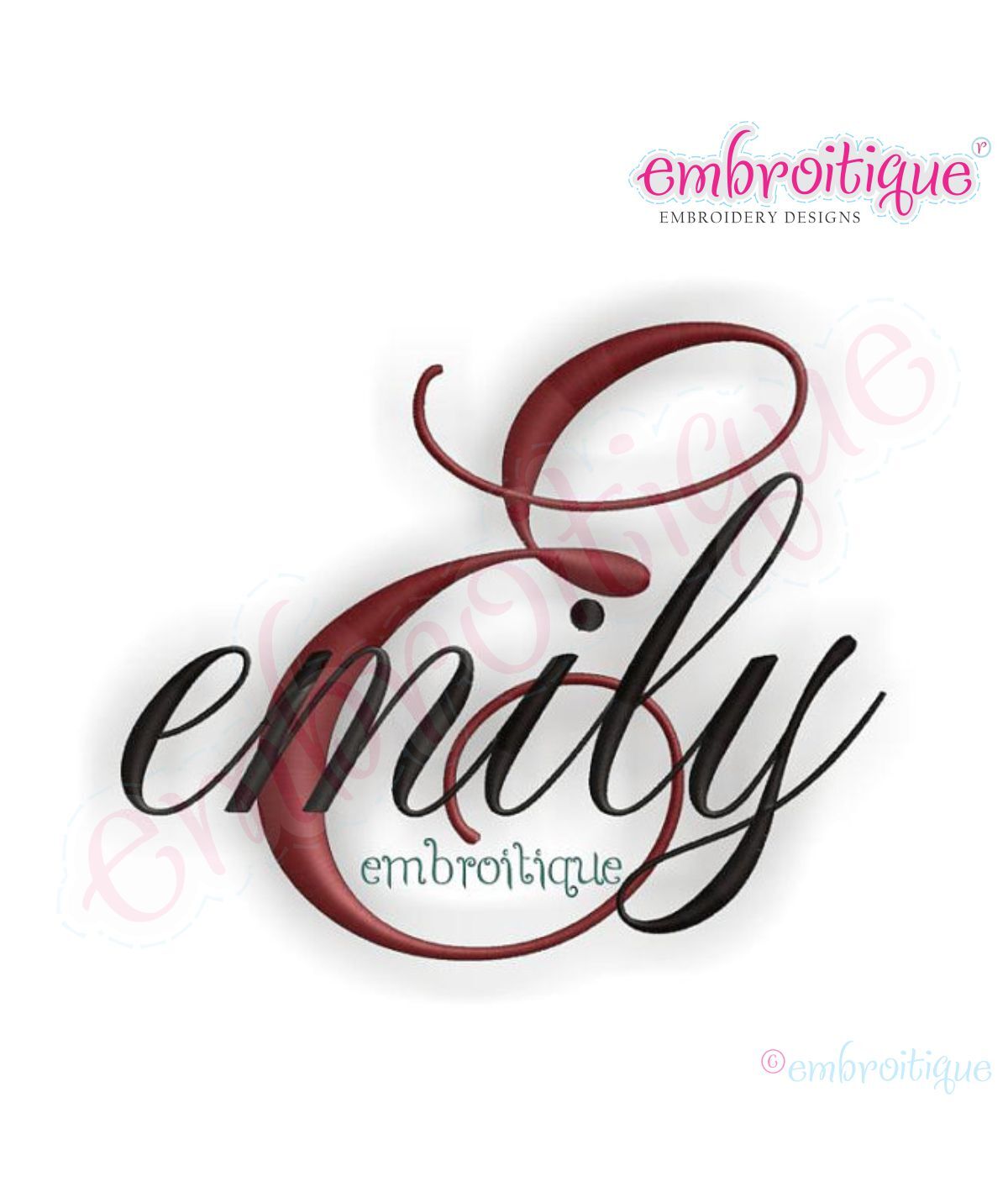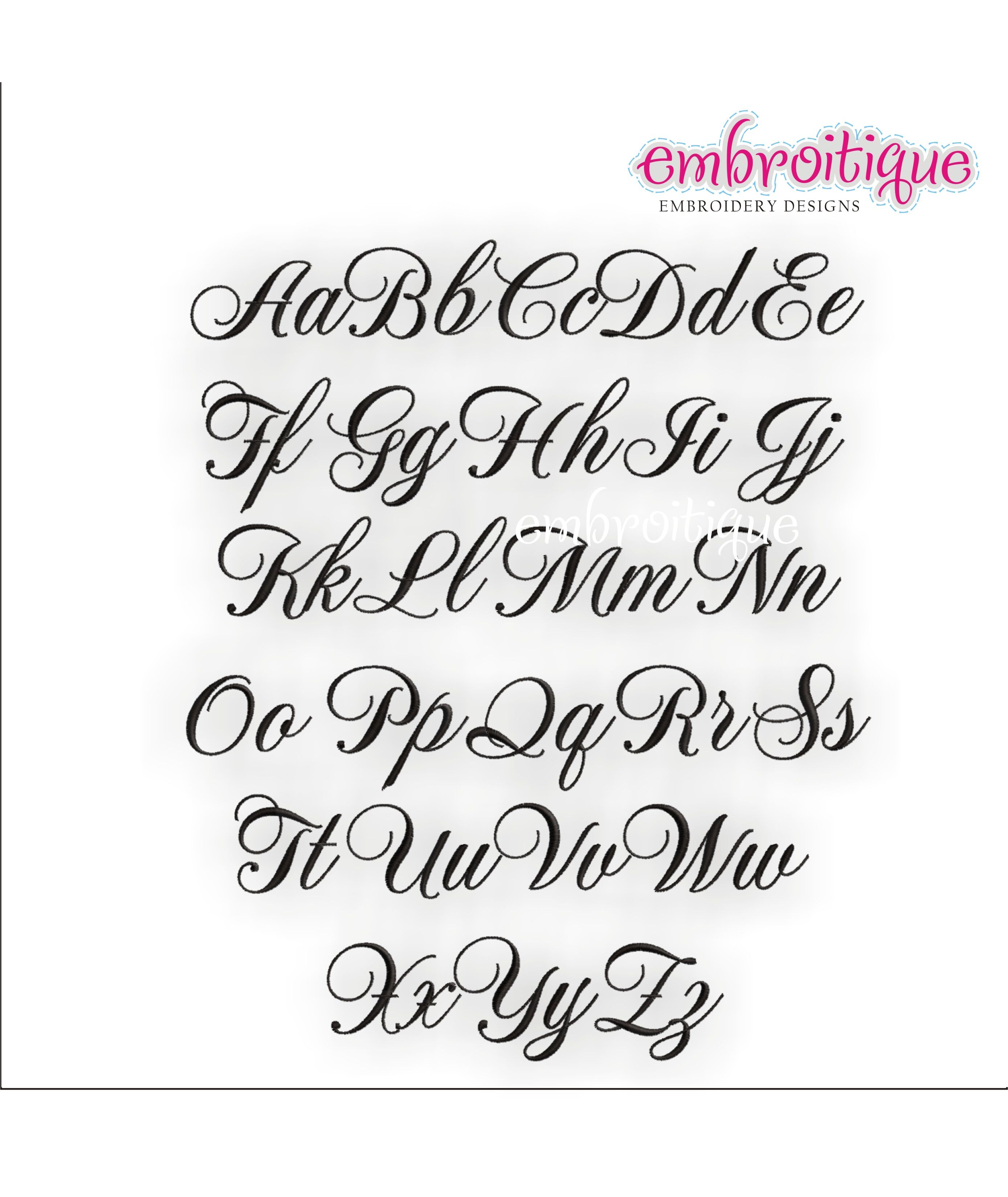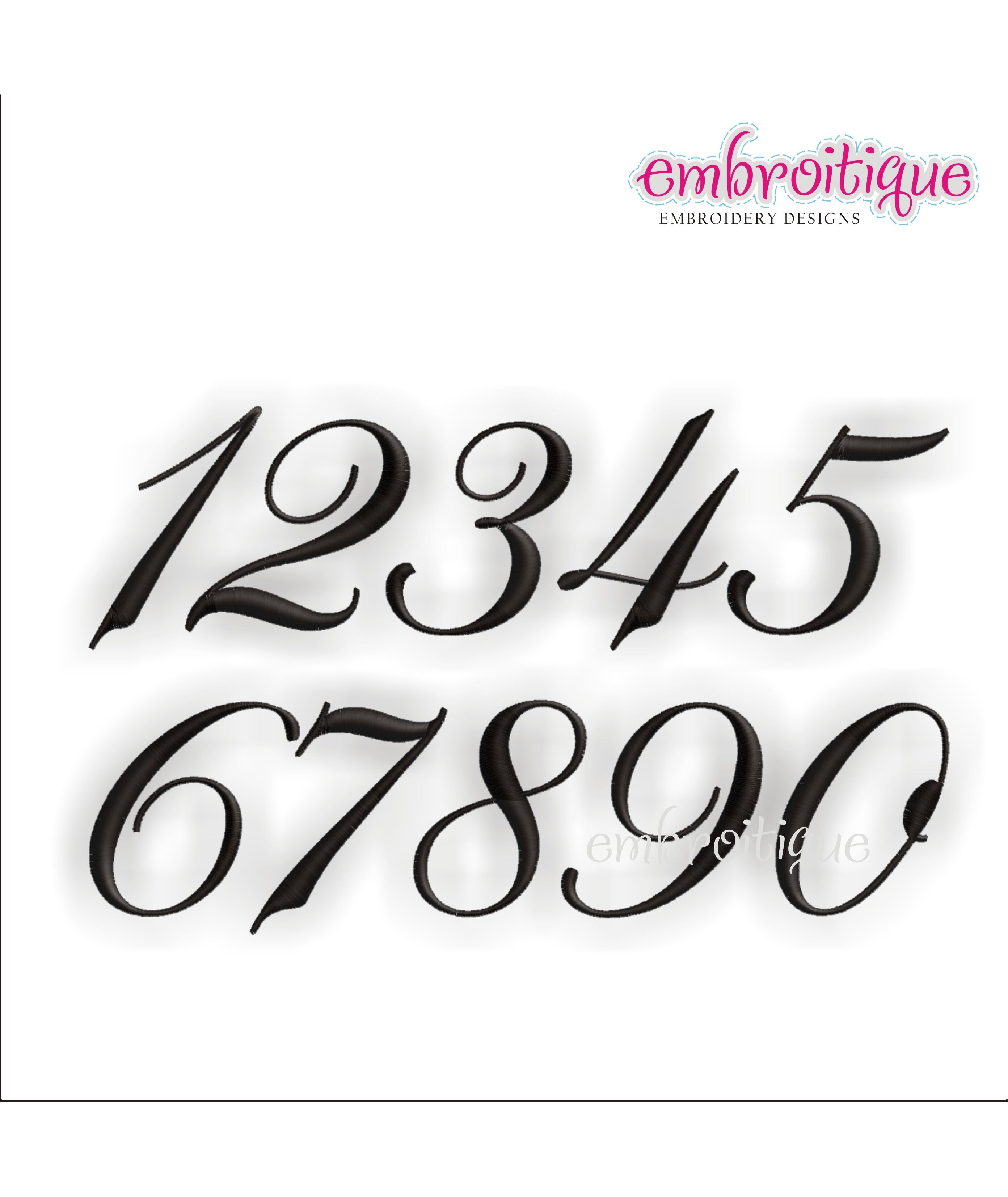
Emily Script Monogram Set (small)
This is one of our most popular monogram sets! An absolutely beautiful font that is versitle and will be a favorite 'go to' set for years to come!  Each letter and number is an individual file that you can use to build names, monograms and more!
It is such a beautiful, elegant font!  Perfect for building your own monograms.  Each letter is an individual file.  The monogram pictured is an example of what you can do with this set!